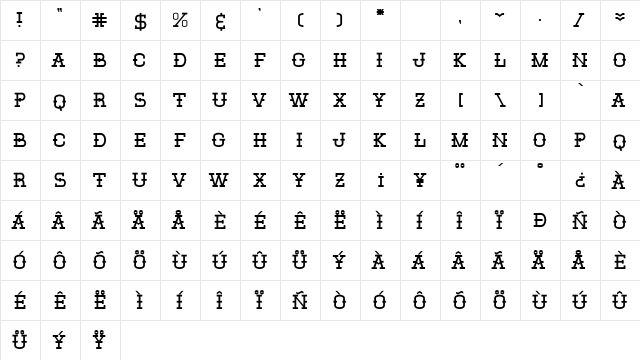
El Sancho Rancho Regular
| Foundry | Font Monger |
| Designer | Chris Vile |
Design Context for El Sancho Rancho Typeface
El Sancho Rancho is a composed and adaptable typeface that performs quietly and consistently across a wide range of design contexts.